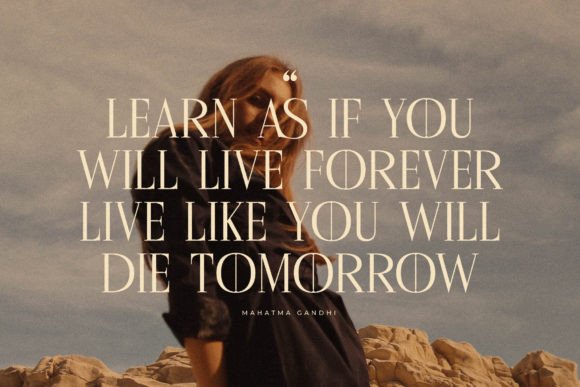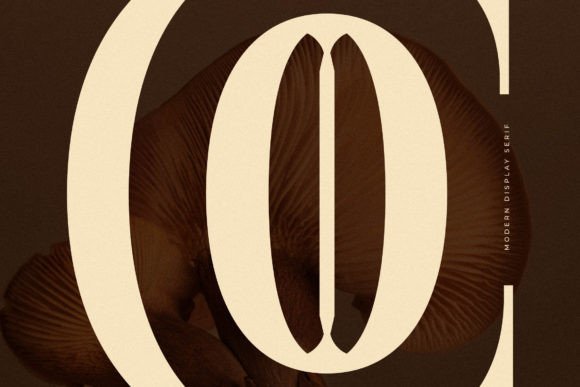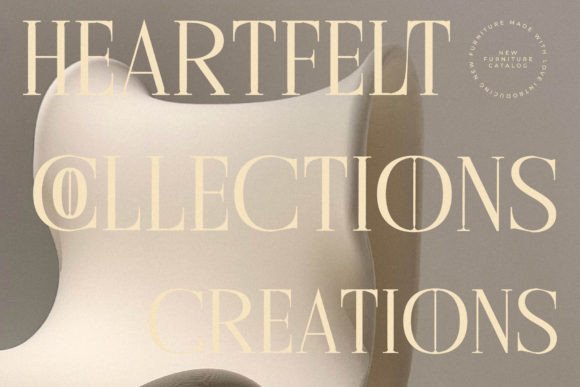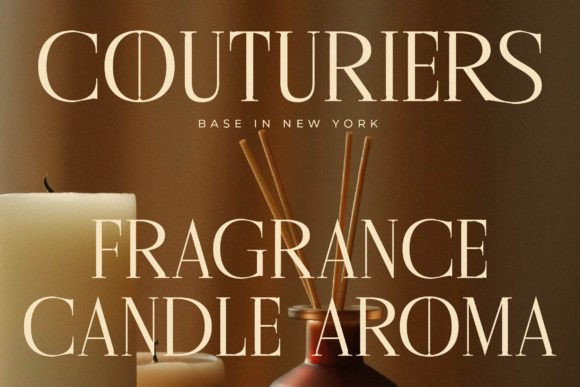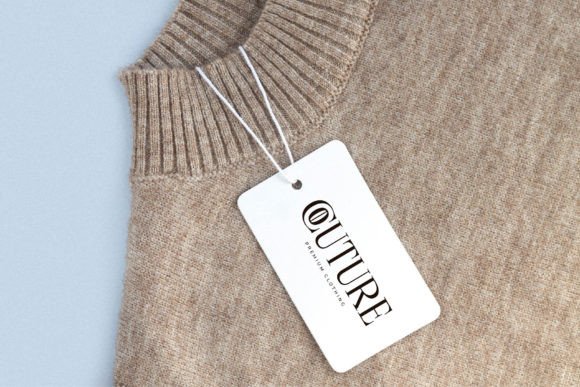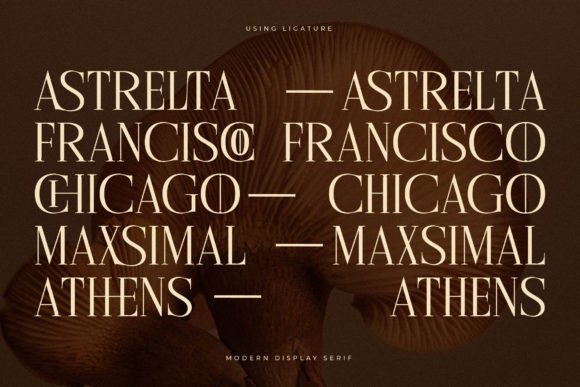
Discover the Elegance of Cholten Font: A Modern Classic Serif Typeface
In the world of typography, a good font can make all the difference in the aesthetic and effectiveness of a design. For designers and crafters looking for a typeface that exudes elegance, sophistication, and a touch of modernity, Cholten Font is an excellent choice. This modern and classic serif typeface has carved out its own unique niche with its distinctive style and contemporary look, making it perfect for a wide range of applications.
The Unique Style of Cholten Font
Cholten Font stands out in the realm of serif typefaces due to its unique blend of classic and modern elements. Its design is characterized by clean lines, elegant curves, and a well-balanced structure that gives it a luxurious feel. The font’s classic roots are evident in its serif details, which add a touch of tradition and reliability to any design. However, it’s the modern twist in its overall aesthetic that makes Cholten Font truly special, allowing it to appeal to a wide audience and suit various design needs.
Versatility of Cholten Font
One of the key advantages of Cholten Font is its versatility. Its elegant and luxurious appearance makes it an ideal choice for projects that require a sophisticated look. Here are some of the areas where Cholten Font truly shines:
- Elegant & Luxury Logos: For brands aiming to convey luxury, elegance, and professionalism, Cholten Font can be a perfect fit. Its distinctive style can help a brand stand out and make a lasting impression.
- Book or Movie Title Design: The font’s classic and modern blend makes it suitable for title designs in books and movies, especially in genres that appreciate a touch of elegance and sophistication.
- Fashion Brands: Fashion brands often look for typefaces that can convey style, luxury, and modernity. Cholten Font’s unique aesthetic makes it a great choice for fashion branding, including logos, packaging, and marketing materials.
- Magazines: For magazine designs, Cholten Font can be used for headings, titles, and even body text, providing a cohesive and elegant look throughout the publication.
- Clothes and Lettering: The font’s stylish appearance makes it suitable for clothing designs, custom lettering projects, and any form of apparel that requires a touch of elegance.
- Quotes and More: Beyond these applications, Cholten Font can also be used for creating inspirational quotes, posters, and any other design project that requires a typeface with character and sophistication.
Why Choose Cholten Font?
Choosing Cholten Font for a design project comes with several benefits:
- Unique Style: Cholten Font offers a unique style that can help designers differentiate their work from others.
- Elegance and Sophistication: The font’s elegant and sophisticated look makes it perfect for projects aiming to convey a sense of luxury and professionalism.
- Versatility: Its versatility allows it to be used across various design projects, from logos and branding to editorial and advertising materials.
- Legibility: Despite its elegant appearance, Cholten Font maintains a high level of legibility, making it suitable for both headings and body text.
Cholten Font is a remarkable typeface that brings together the best of both worlds: the classic elegance of serif fonts and the modernity required by contemporary design. Its unique style, versatility, and sophisticated appearance make it an excellent choice for designers and crafters looking to add a touch of luxury and elegance to their projects. Whether it’s for a luxury brand logo, a fashion magazine, or a movie title design, Cholten Font is sure to make a statement.
In the hands of a skilled designer, Cholten Font can elevate a project from ordinary to extraordinary. So, if you’re looking for a typeface that combines classic charm with modern appeal, look no further than Cholten Font. Explore its potential and discover how it can transform your designs into something truly special.